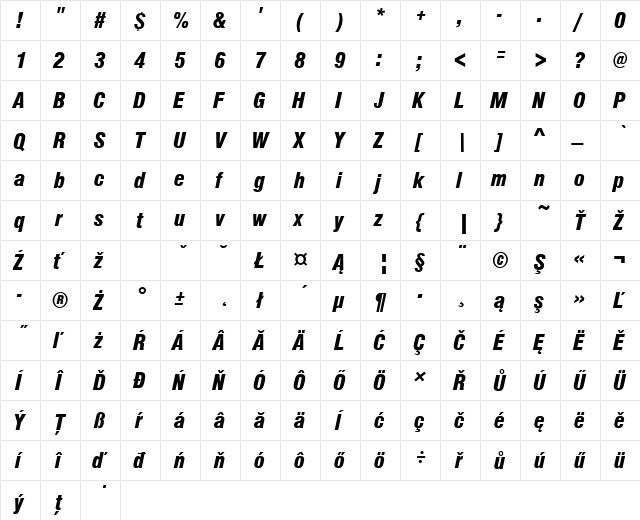
NimbusSanDEEBlaCon Italic Font Preview
NimbusSanDEEBlaCon Italic
Design Context for NimbusSanDEEBlaCon Typeface
NimbusSanDEEBlaCon is a composed and adaptable typeface that performs quietly and consistently across a wide range of design contexts. The dynamic lean of this cut emphasises speed and emphasis in any layout.
Pro Tip: Try NimbusSanDEEBlaCon for annotation and caption copy alongside an upright companion — the contrast in angle creates a dynamic but ordered typographic system.